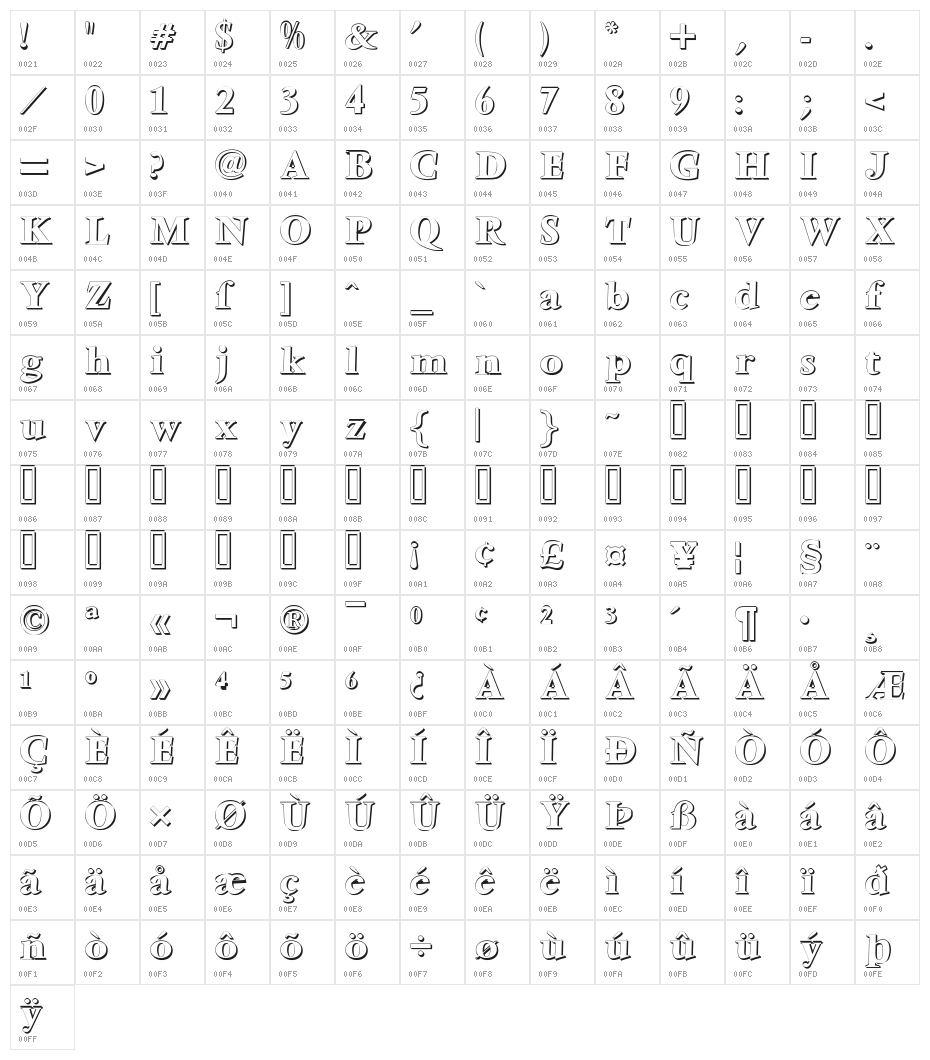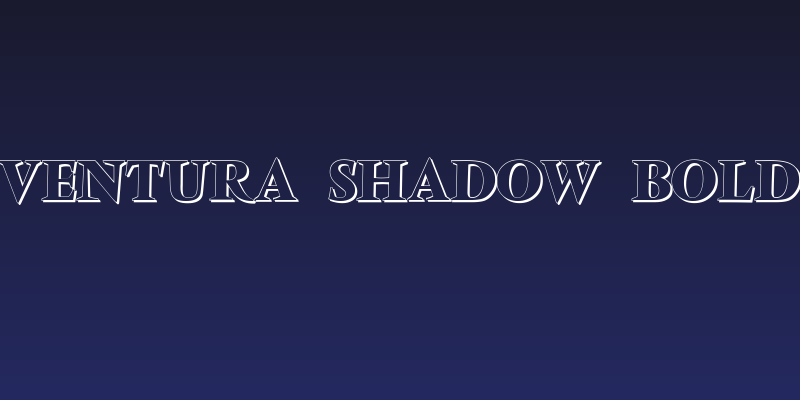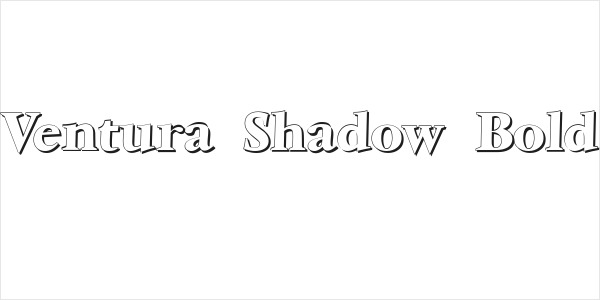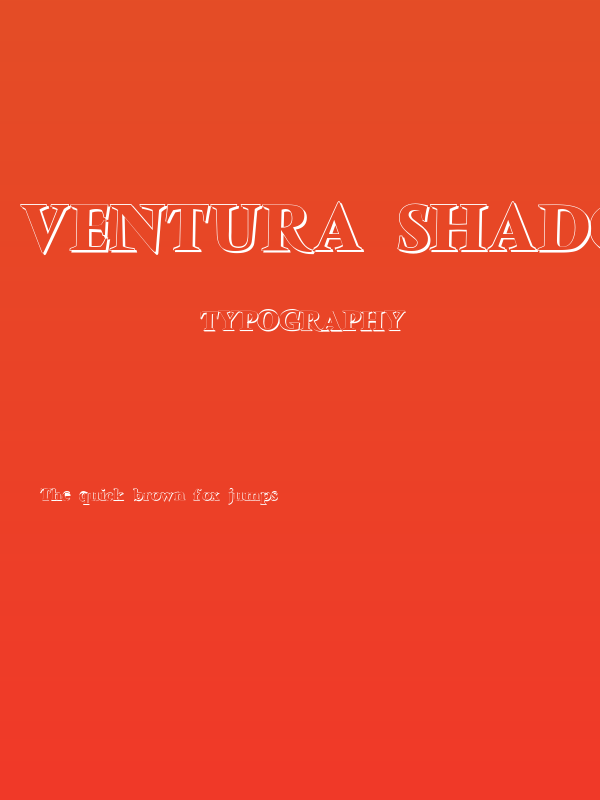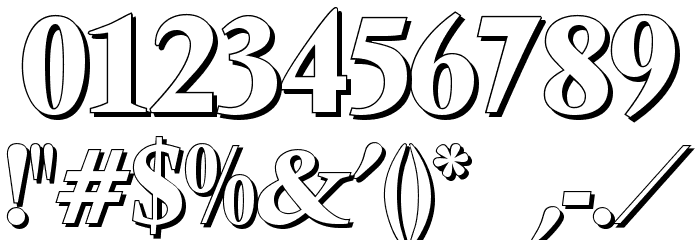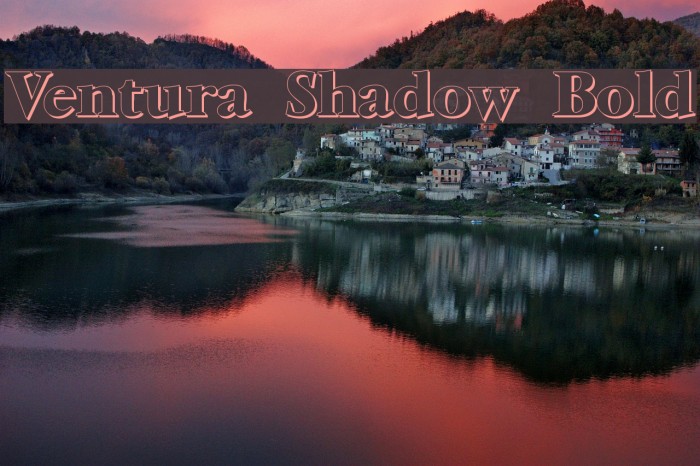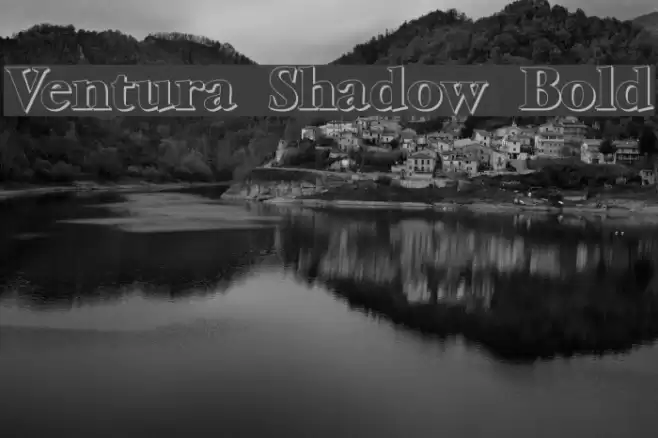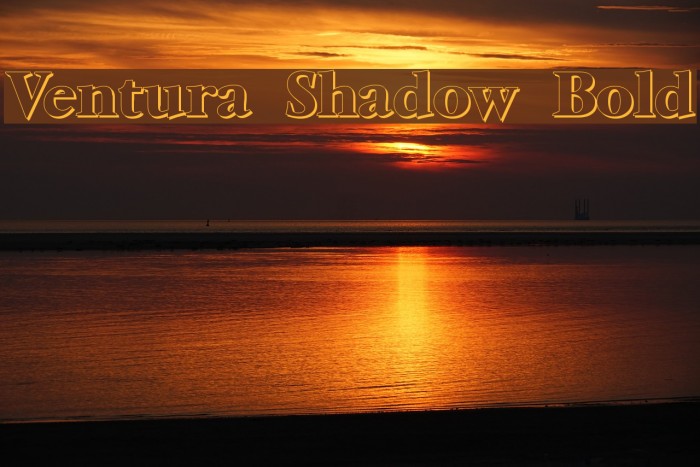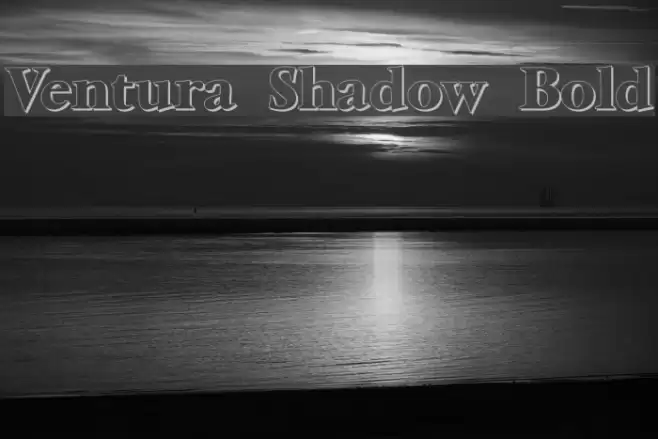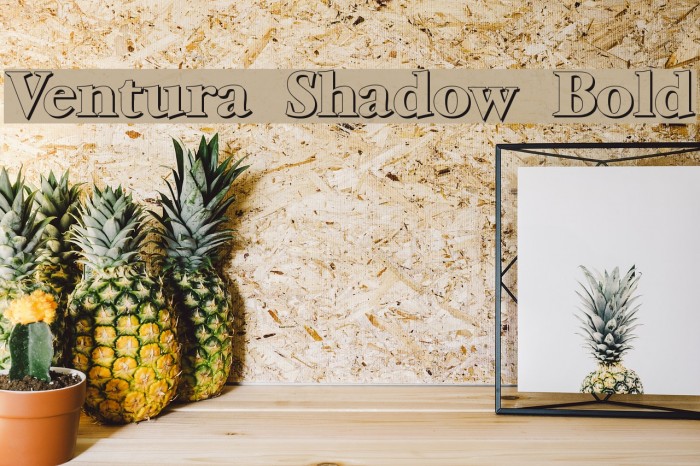
Ventura Shadow Bold Font
Ventura Shadow Bold Description
This font features a bold, shadowed style that combines classic serif elements with a modern twist. The uppercase and lowercase letters are designed with a strong presence, making them ideal for attention-grabbing headlines. The shadow effect adds depth and dimension, enhancing the overall visual impact. The numerals are equally bold and consistent with the letterforms, ensuring uniformity across all characters. Special characters are included, maintaining the same bold and shadowed aesthetic, making this font versatile for various design needs.
| Proposed Projects | Ideal for branding, poster design, book covers, and any project requiring a strong visual presence. |